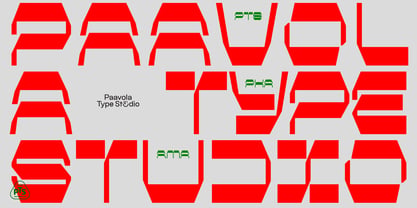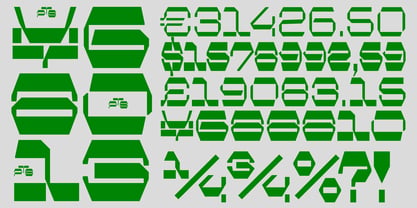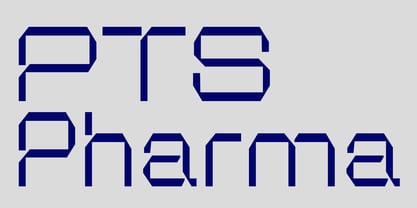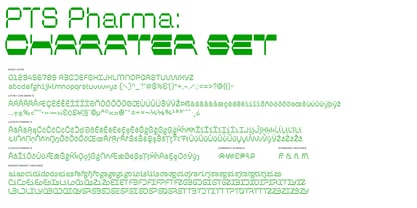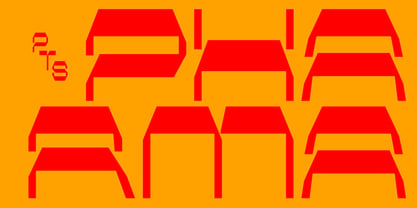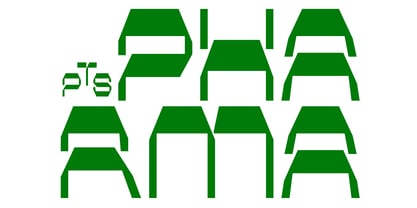
PTS Pharma
by Paavola Type Studio
The PTS Pharma Font Family was designed by Jani Paavola and published by Paavola Type Studio. PTS Pharma contains 21 styles and family package options. More about this family
PTS Pharma is an innovative and original angular reverse-contrast display typeface family, offering seven weights and three widths. This unique reverse-contrast (or reverse-stress) letterform features thick horizontal lines, creating a striking visual impact. PTS Pharma seamlessly blends futuristic and retro aesthetics, making it suitable for a wide range of applications, including graphic identities and headlines, among others. Its versatile design ensures it stands out in various contexts, enhancing branding and visual communication.
Designers: Jani Paavola
Foundry: Paavola Type Studio